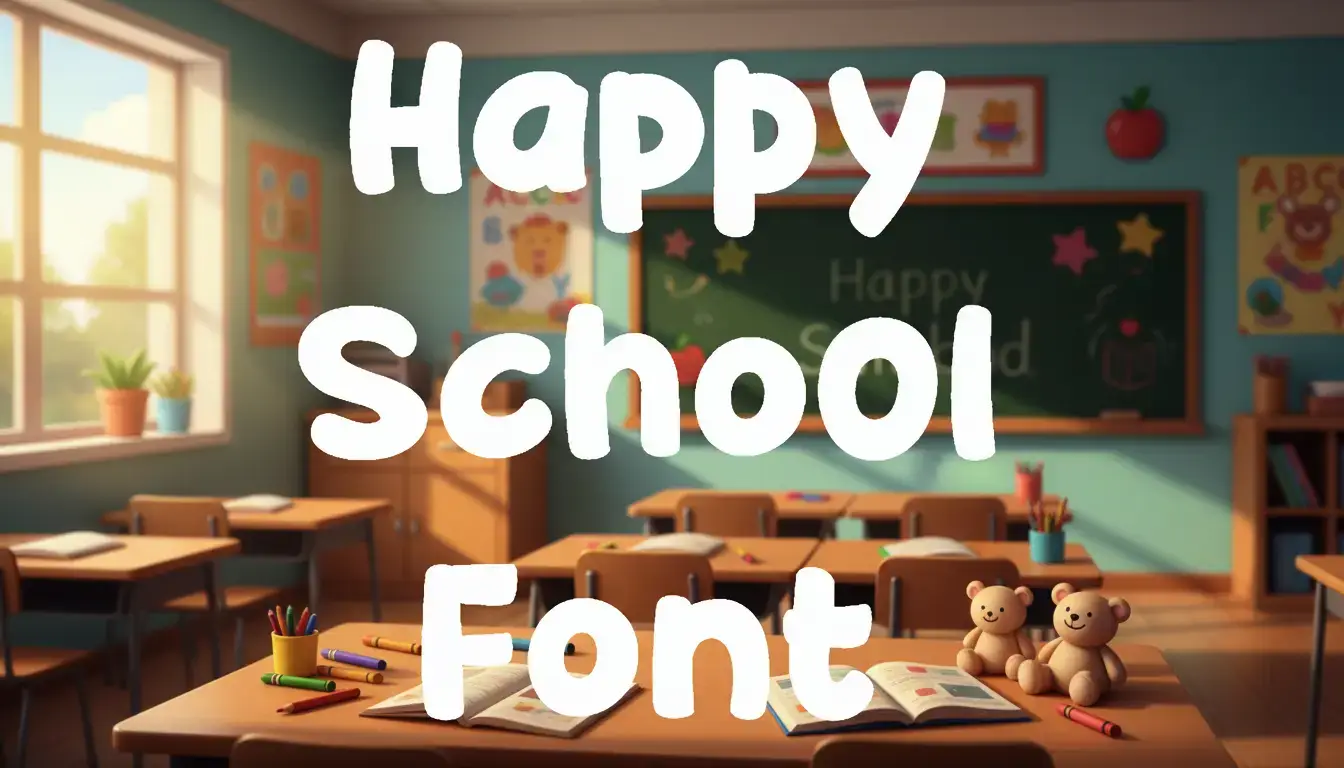
Happy School Font
What You Can Type With Happy School
Happy School covers the full alphabet in upper and lowercase, plus all ten numbers, so you can set names, dates and prices without switching fonts. Everyday marks like &, !, ? and $ are there too. There are no accented letters like é or ñ, so it's best kept to English text.
Where Happy School Works Best
Think of Happy School for posters, logos and eye-catching headlines. Use it for one standout word or headline and let simpler fonts handle the rest.
Does Happy School support accented letters?
No. Happy School has no accented letters such as é, ñ or ü, so it's best for English text.